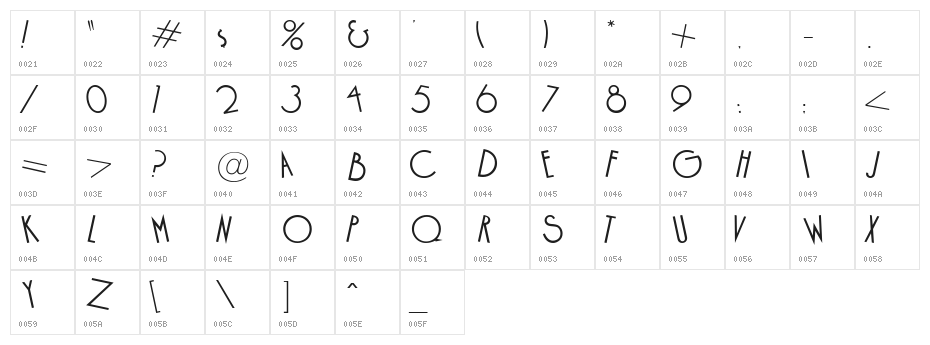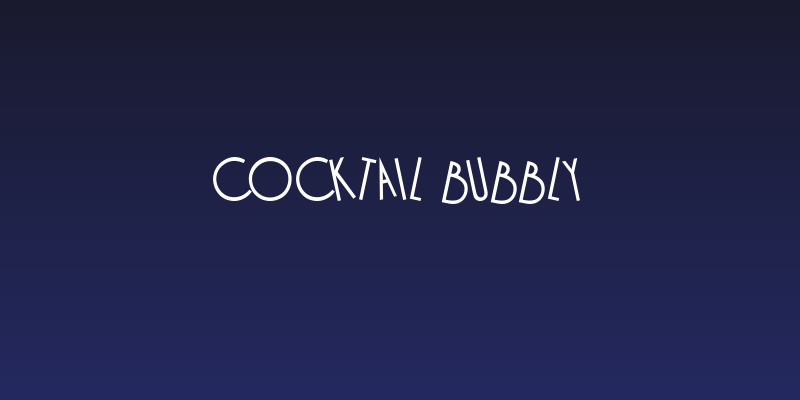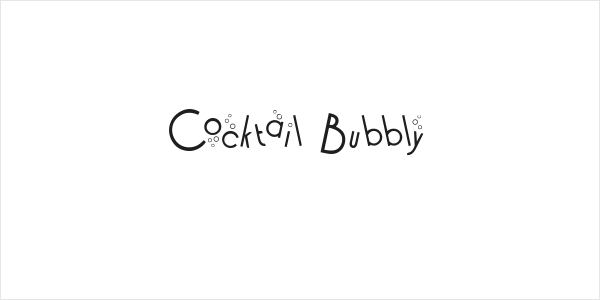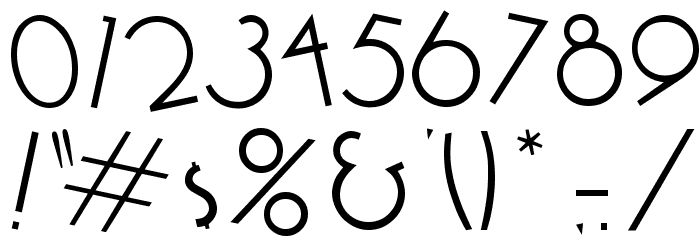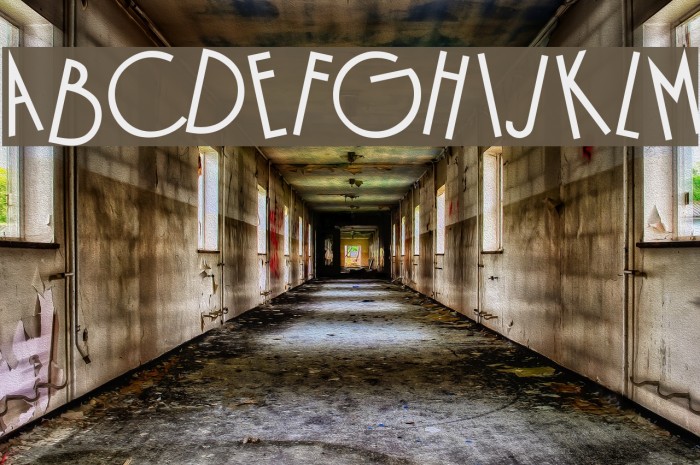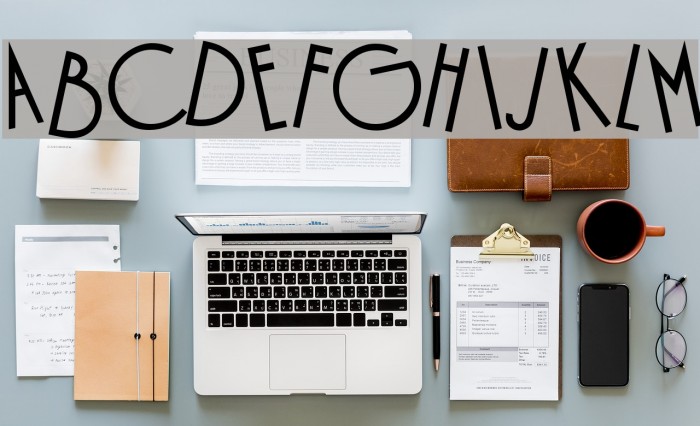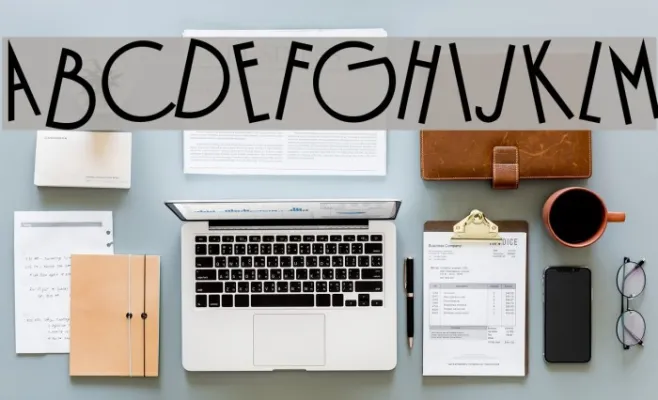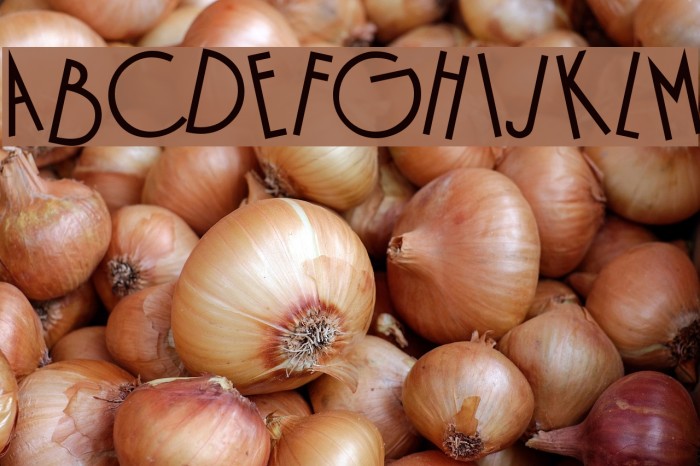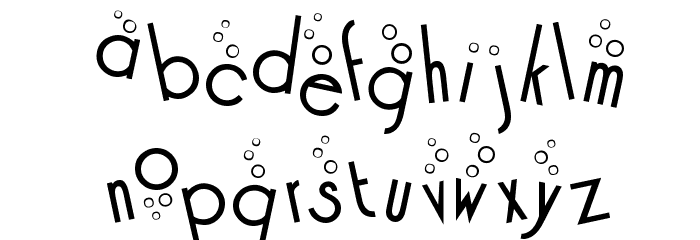
Cocktail Bubbly Font
Cocktail Bubbly Description
This playful and whimsical font features a bubbly, effervescent style that mimics the appearance of champagne bubbles rising through liquid. The uppercase letters are tall and slightly narrow, with a quirky, uneven baseline that adds to the font's charm. Lowercase letters are adorned with small bubble-like circles, enhancing the playful theme. The numbers and special characters maintain this bubbly aesthetic, making the font ideal for fun and festive designs. The overall look is lively and energetic, perfect for capturing attention and adding a touch of joy to any project.
| Use Case | Headlines, Logos, Invitations |
| Proposed Projects | Ideal for party invitations, children's books, festive banners, and playful branding. |